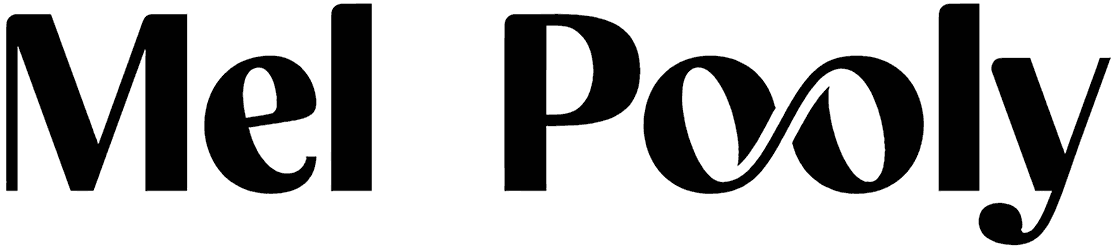
Mel Pooly Font
It doesn’t matter if your background design or decorative elements aren’t robust; Mel Pooly alone can become your strong point in the design.
Even without numbers, this logo font will still have enough power to attract the audience and can provide you with everything you need by clearly conveying the message. By leveraging this font’s distinctive and classic atmosphere, you can transform your book cover design, website content, or social media poster into a cohesive and ongoing work.